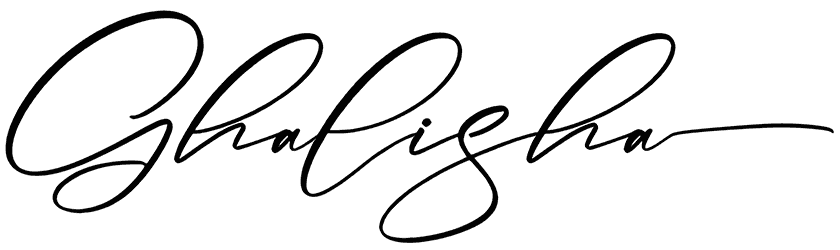
Ghalisha Font
Usually, making up your mind about choosing a handwritten font can be tricky, but Ghalisha won’t give you any reason to think twice. As if written with a master of penmanship, this signature font will bring a human touch as well as a great taste to your artwork.
It may get a little hard sometimes to make heads or tails of what it’s saying, but it’s still beneficial to add this autograph font to your greeting cards, mugs, product labels, etc.